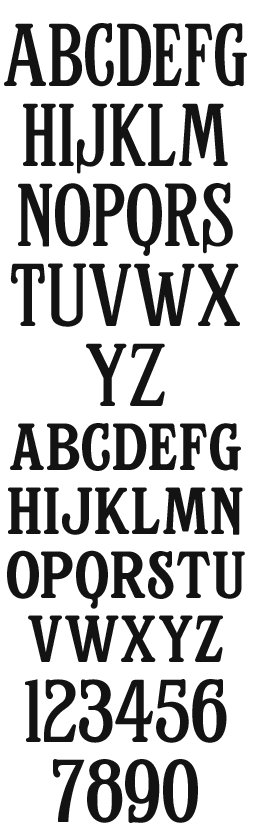
The original sign from which the letters are inspired
LHF Vienna Many years ago John did a gold leaf on glass reproduction sign for Vienna Sausage Manufacturing Company. This font is inspired by the lettering used for that sign. Caps drop down slightly below the small caps. Rounded serifs give it a friendly, approachable look.